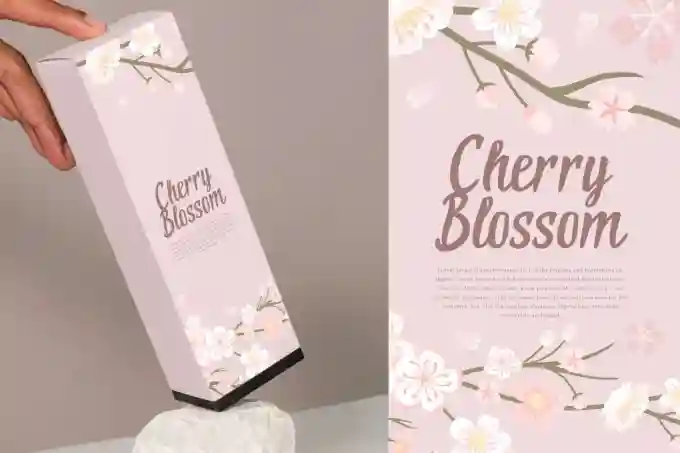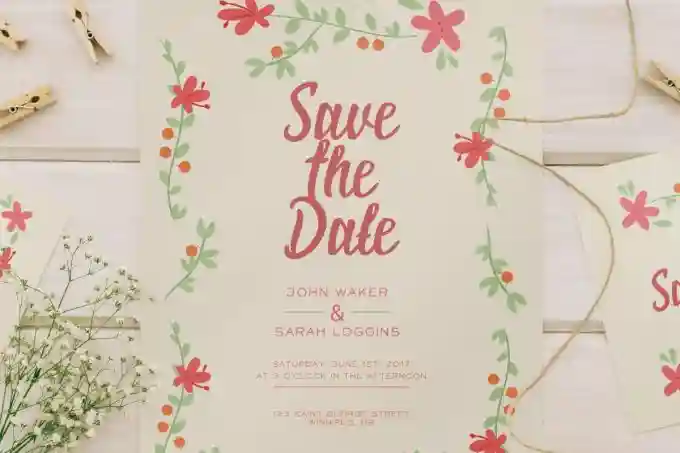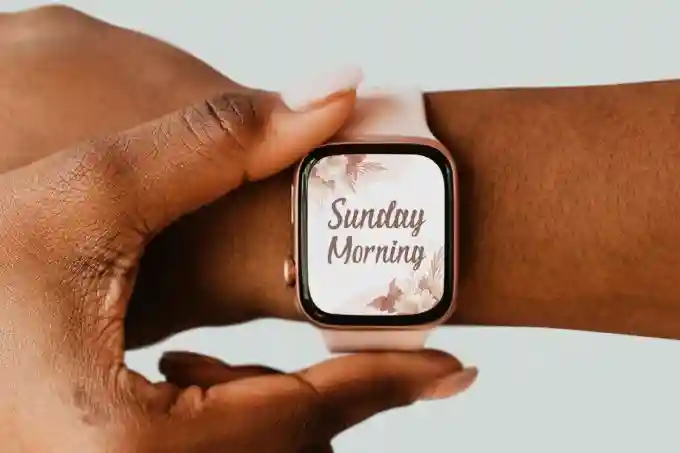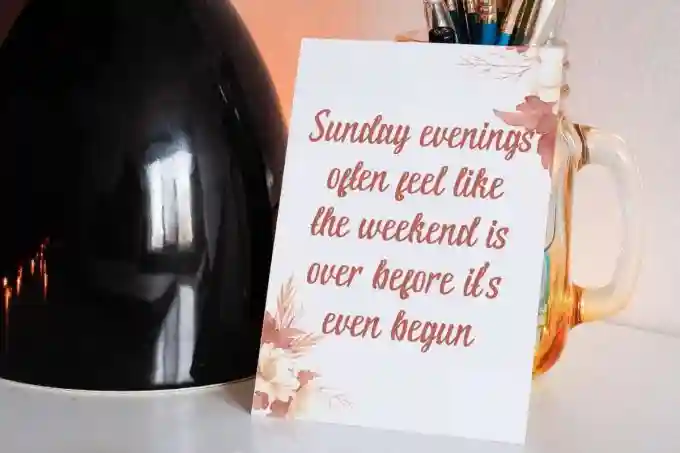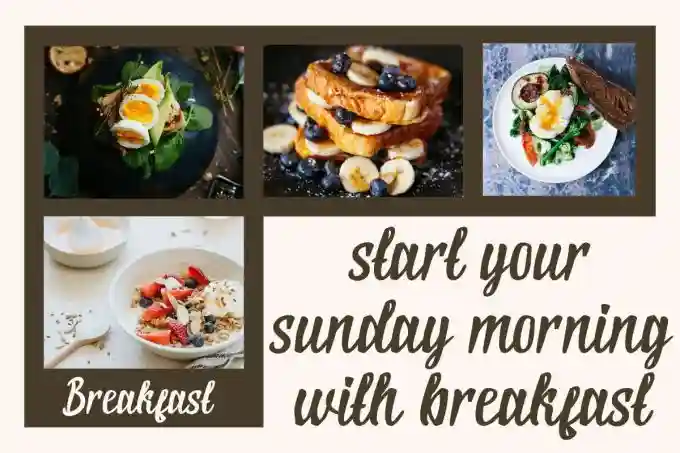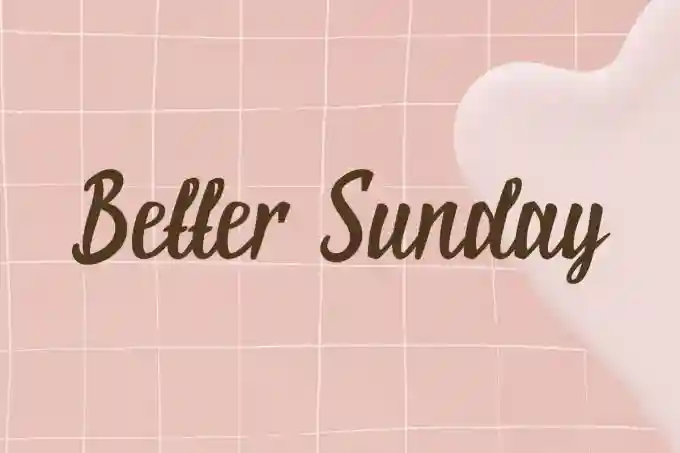
Better Sunday Font is a calligraphy font in timeless look, created by VinType Studio. This font has a modern look that is easy to read, making it a favorite of many people. It will be perfect for any industries, such as event or wedding organizer, beauty product, spa, florist, advertisement, restaurant, fashion, furniture, perfume, printing, publishing, and more!
Better Sunday Font includes full set of Uppercase and Lowercase Basic Characters, Numerals and Punctuation. This font will make your designs more aesthetic vibes to your stunning project, such as custom design, invitation, label, brand image, brochure, catalog, frame art, packaging design, poster, quote, screen printing, stationery, website, etc.